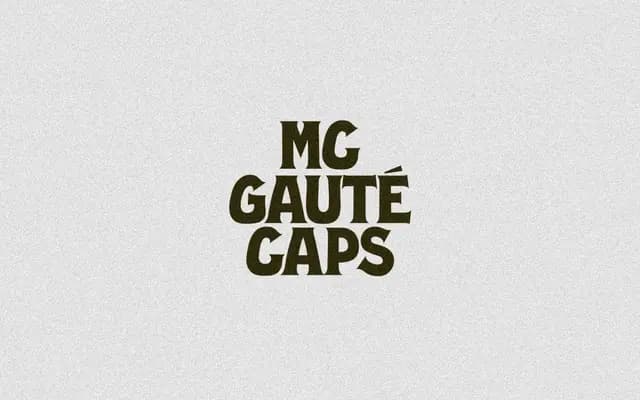
MC Gauté Caps
An all-caps display typeface from McLetters, priced on a tiered commercial licensing model.
MC Gauté Caps is a capitals-only display typeface from McLetters, positioned for headline and titling work. Licensing is structured by company size and use case, spanning individual through to large commercial and app use. The page provides minimal detail on design specifics or stylistic influences.
The all-caps nature and display-only naming convention suggest a decorative capitals typeface intended for headline or titling use rather than text setting.